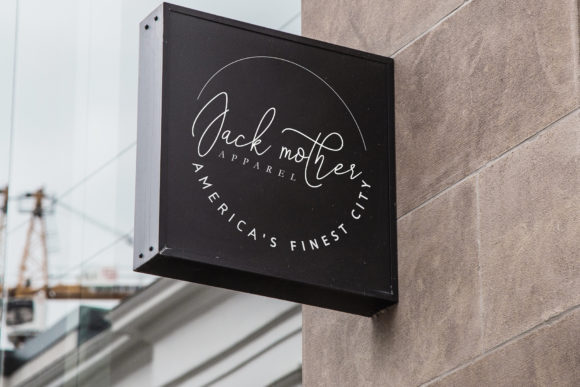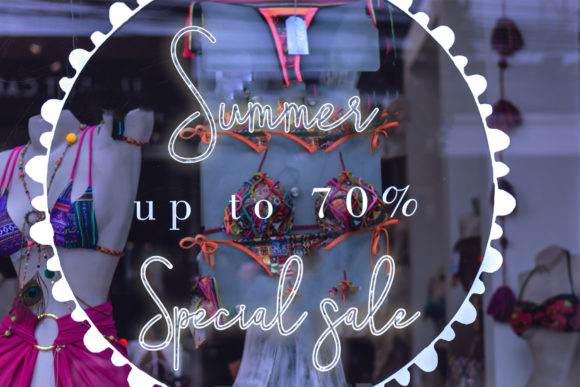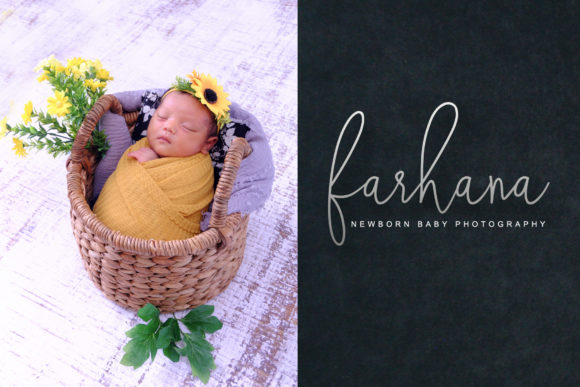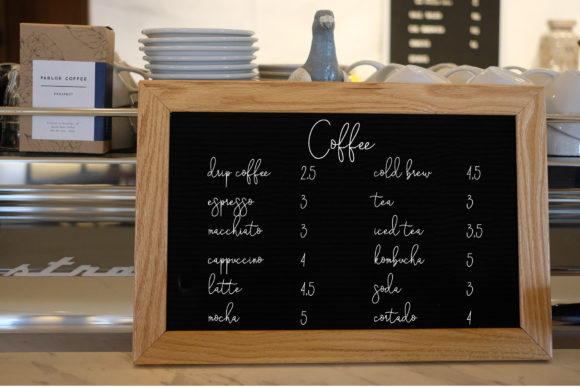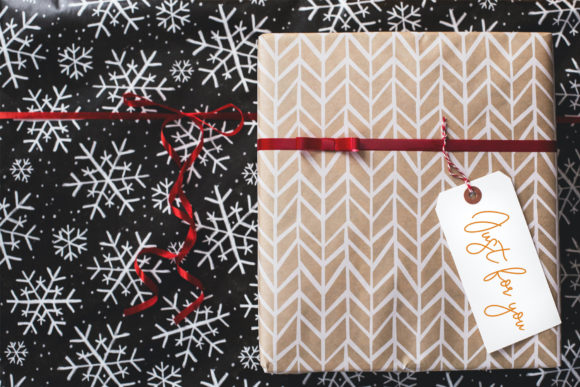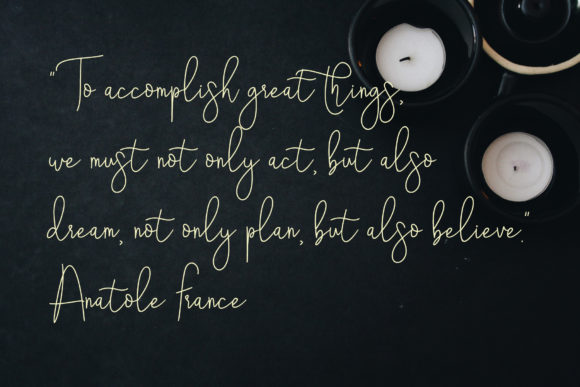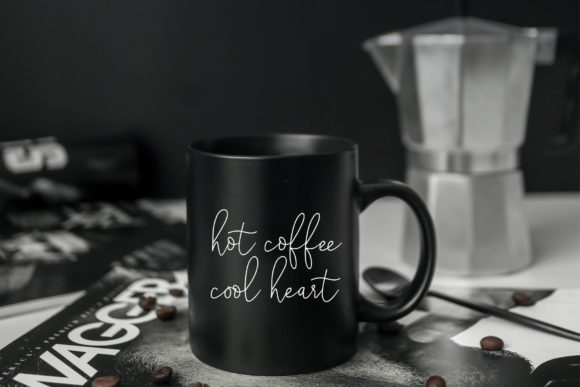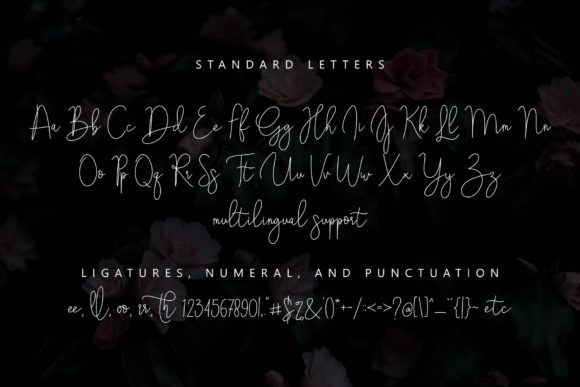
Rooseline Font
About Rooseline Font
Rooseline is a fashionable script font. Warm, romantic and delicate, this font will turn each of your project ideas into real works of art. Have fun with this beautiful font and explore its endless variations.